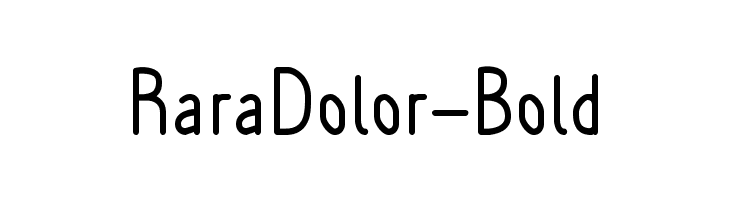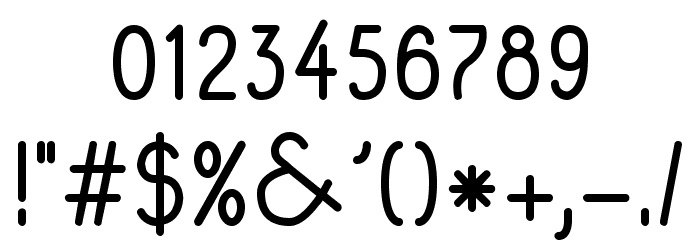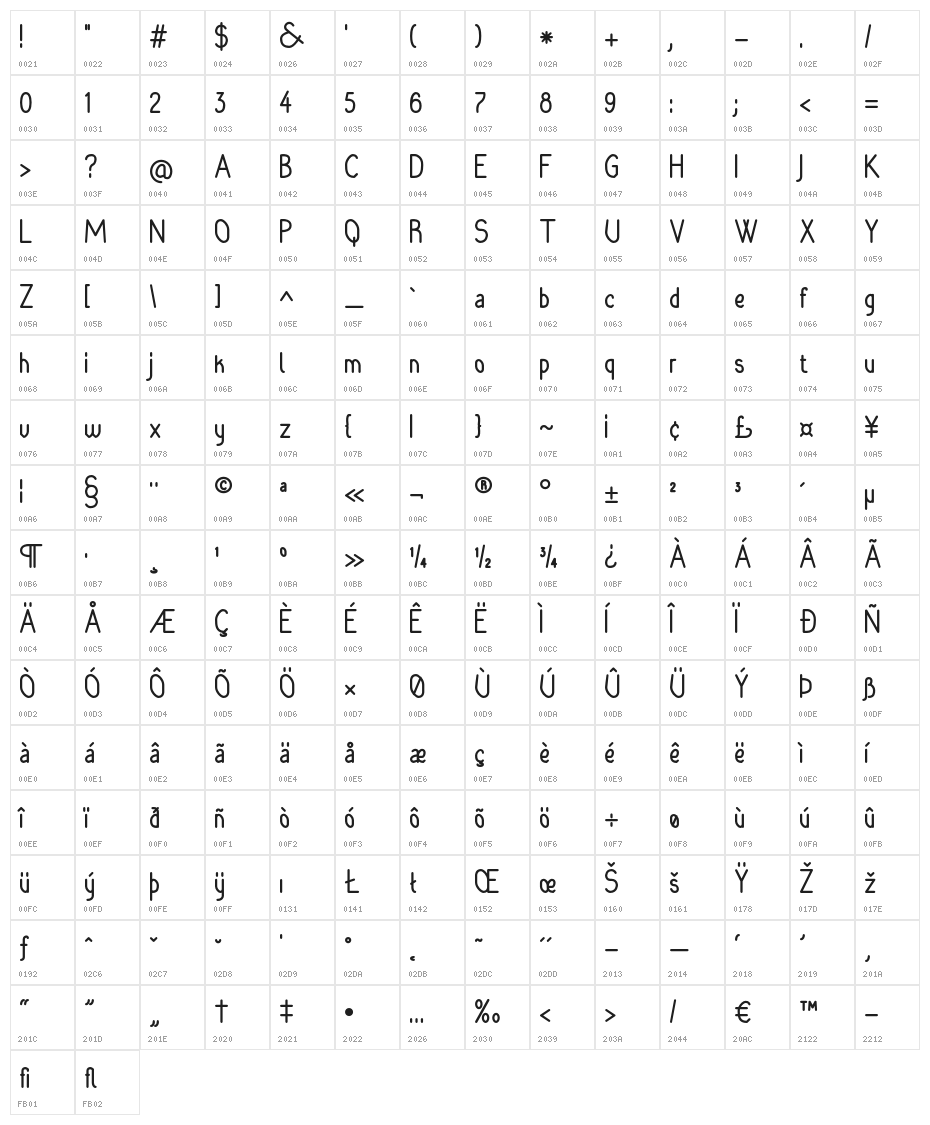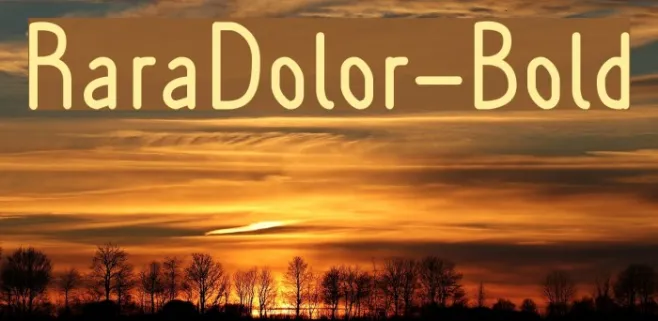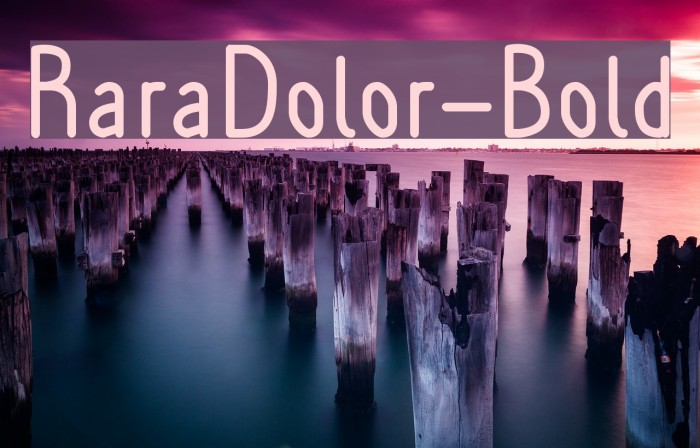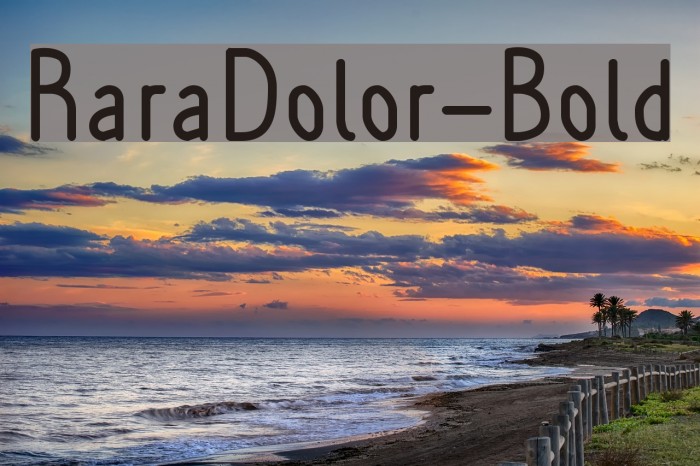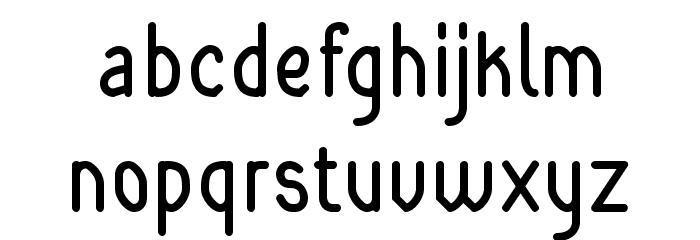
RaraDolor-Bold Font
RaraDolor-Bold Description
This font features a clean and modern design with rounded edges and a uniform stroke width, giving it a friendly and approachable appearance. The characters are well-proportioned, with a slight geometric influence that adds to its contemporary feel. The uppercase letters are tall and slightly condensed, while the lowercase letters maintain a consistent height, ensuring readability. The numerals are clear and distinct, matching the overall style of the alphabet. Special characters are designed with the same attention to detail, making this font versatile for various uses.